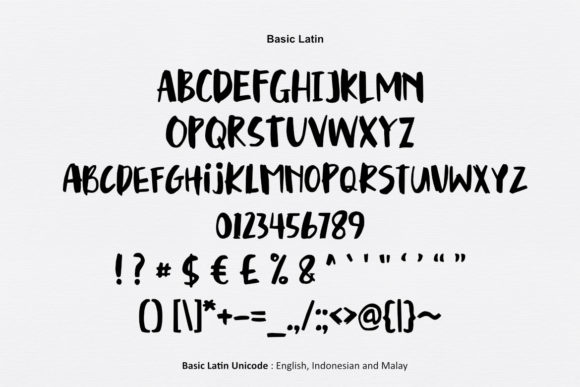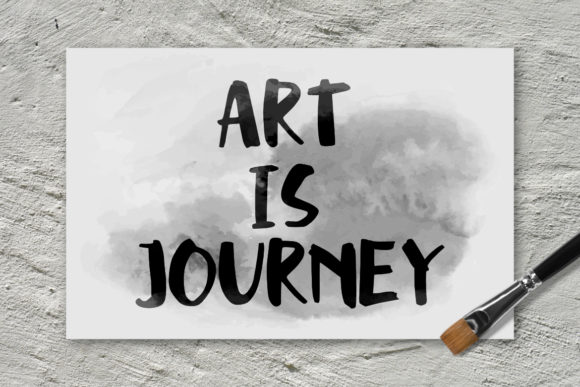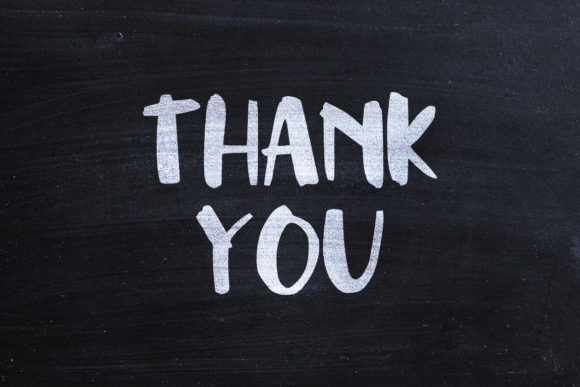
Introduction to Sand Dust Font Font
Fonts play a crucial role in design, and the Sand Dust Font font is a typeface that brings both character and versatility to any project. Whether you’re working on a branding project, a website, or a print design, the Sand Dust Font font offers a unique style that can elevate your work.
Sand Dust is a casual and friendly display font, created by using a brush pen.
Clean and a little bit quirky, this font is the perfect fit for all of your logos, branding, social media, and crafty DIY projects .
Key Features of Sand Dust Font Font
Why Choose Sand Dust Font Font?
The Sand Dust Font font is more than just a typeface – it’s a design tool that helps you communicate your message with style and clarity. Its unique character set and versatile design make it suitable for a wide range of applications, from elegant invitations to bold headlines.
With its carefully crafted letterforms and balanced proportions, the Sand Dust Font font ensures readability and visual appeal across all mediums.
What makes Sand Dust Font font special?
The Sand Dust Font font stands out with its unique design, exceptional readability, and versatility across various design applications.